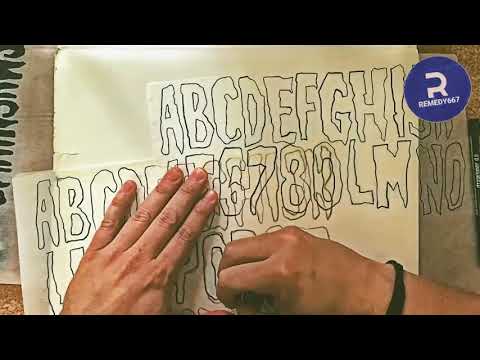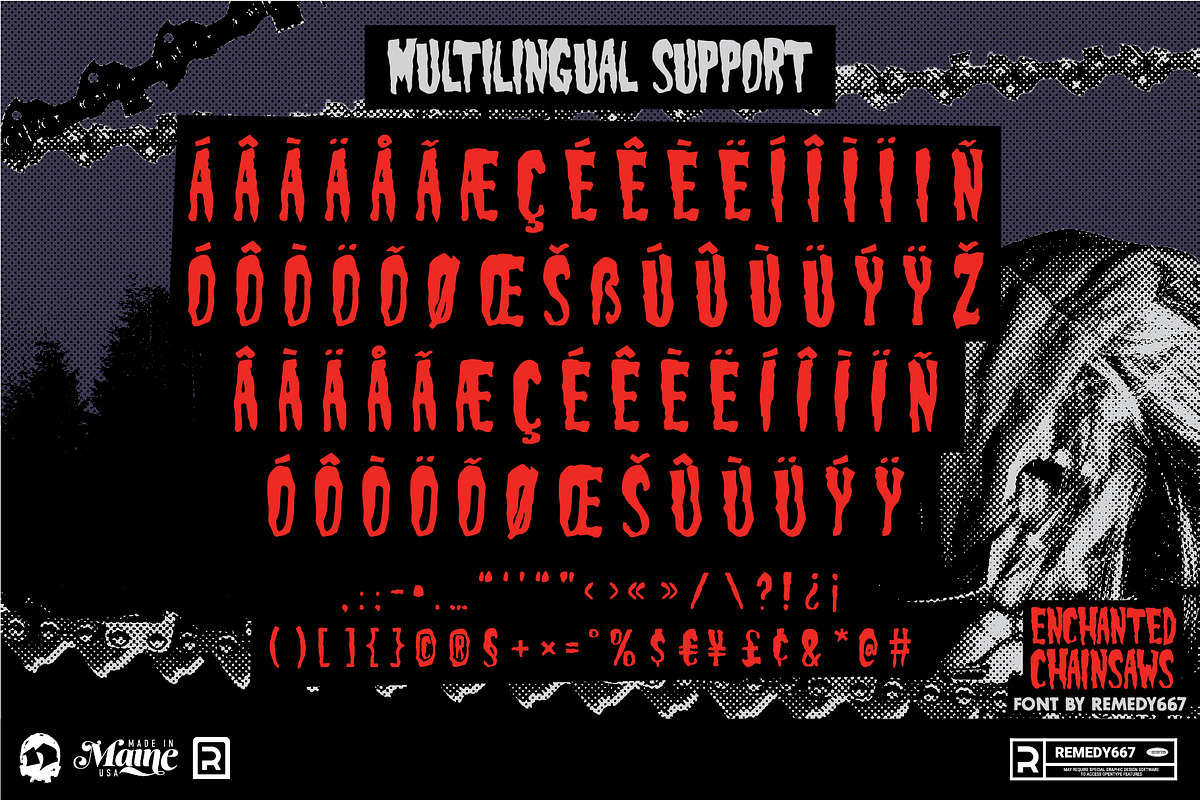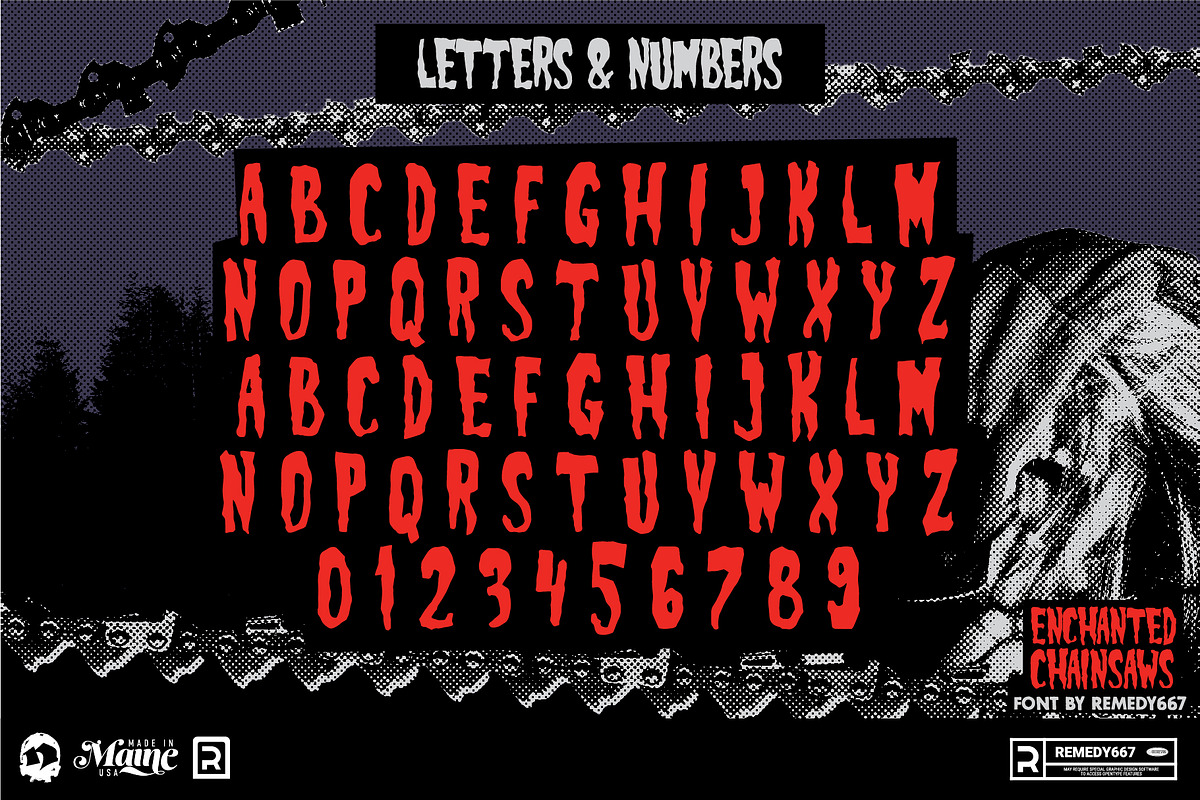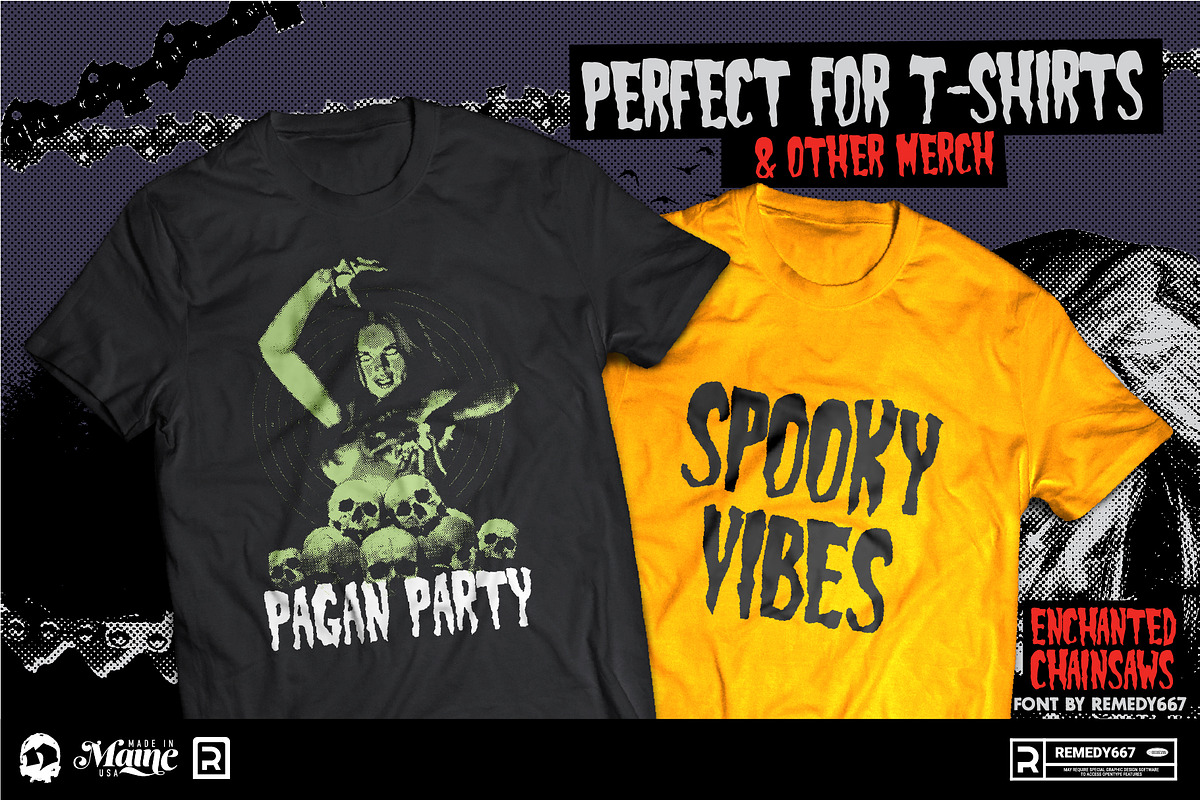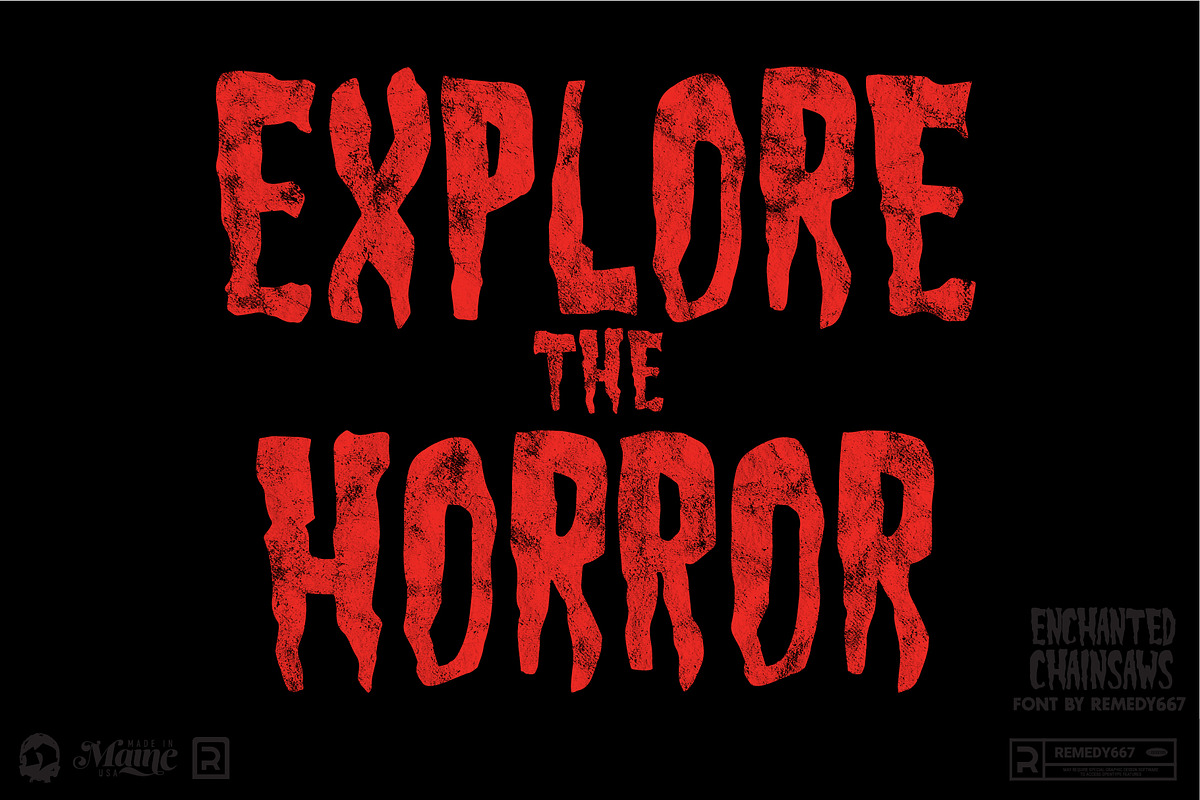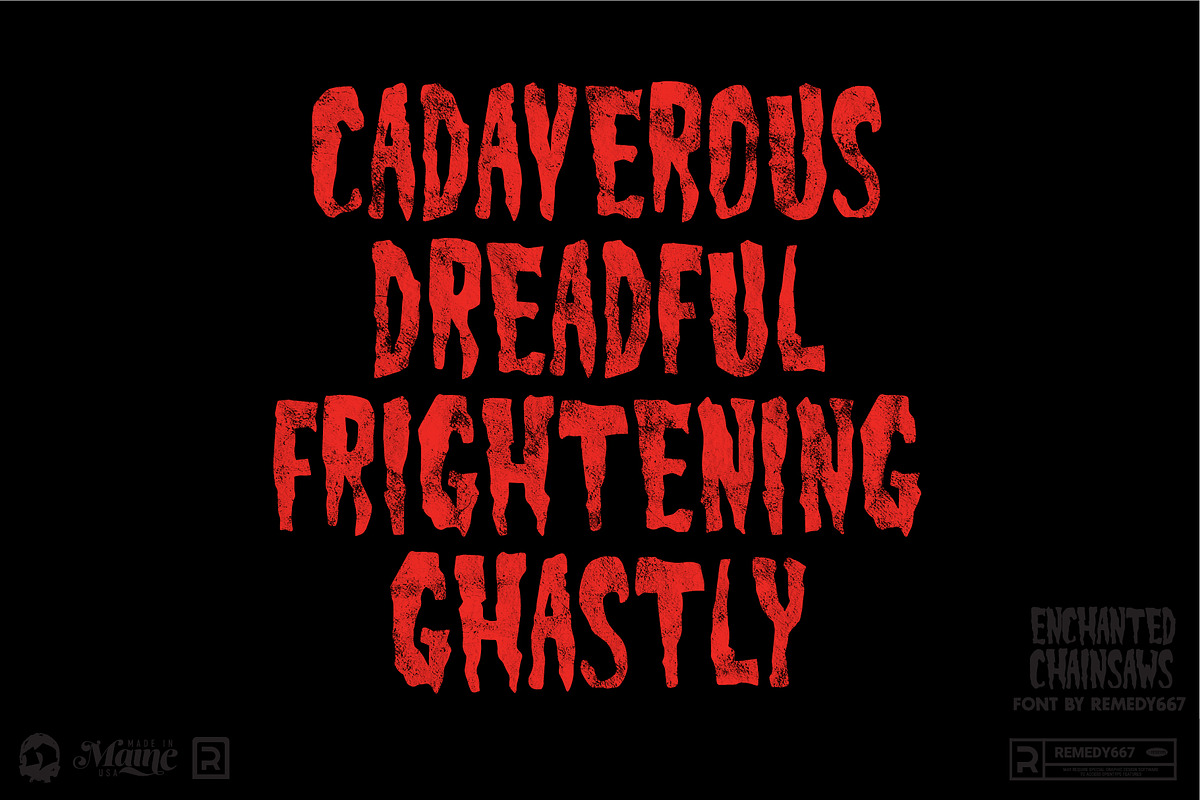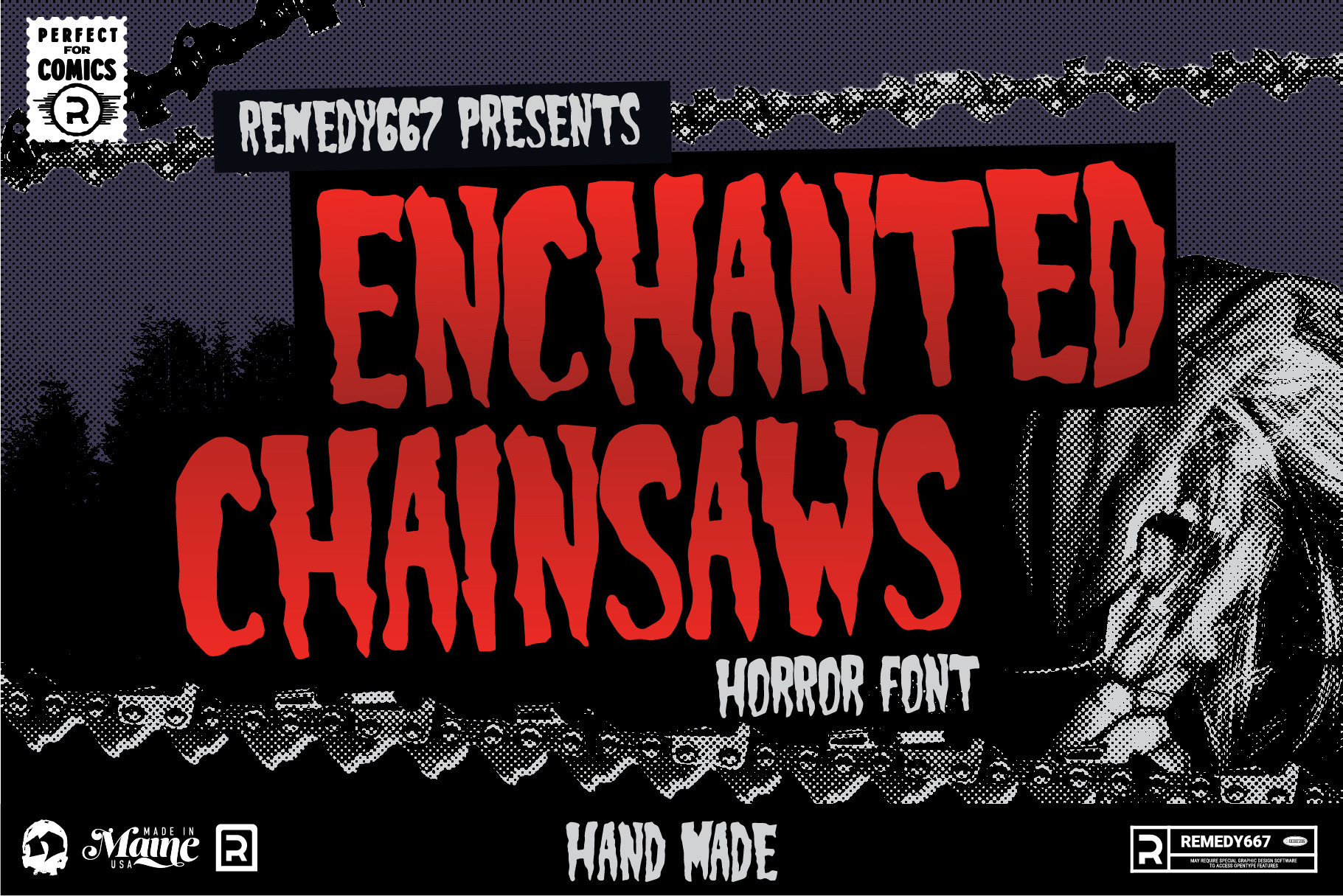
Enchanted Chainsaws - Horror Font
Enchanted Chainsaws is reminiscent of horror comic titling from the early 1950s. A jagged all-caps design with slender features and tight kerning helps you fit your type into deep dark spaces. Like nightmares perhaps? Don’t stop there, Enchanted Chainsaws works with posters, album covers, movie titles, apparel, logos, YouTube covers, comic books… anywhere you use fonts.
Enchanted Chainsaws, come to think of it, the initials are a bit familiar, speaking of classic horror tales… not to be cryptic. Enchanted Chainsaws will cut through your design work like butter.
- Use it with posters, album covers, movie titles, apparel, logos, YouTube covers, and comic books
- Perfect for anywhere you use fonts!